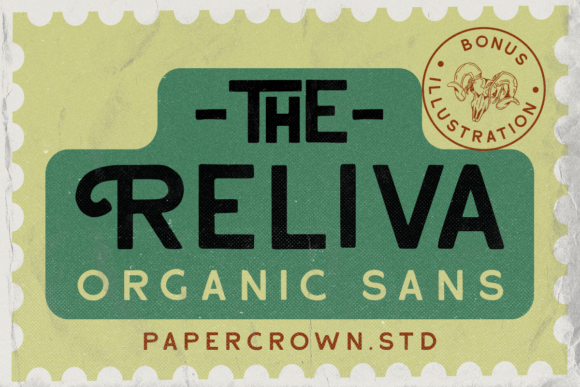
Embark on a typographic journey with Reliva, a remarkable sans serif font family that will transform your designs into captivating masterpieces. Crafted with meticulous attention to detail, Reliva boasts a rich array of alternates and ligatures, granting you unparalleled creative freedom to express your individuality.
Immerse yourself in the boundless possibilities presented by Reliva's extensive character set. Unleash your artistic vision with a myriad of stylistic options at your fingertips, allowing you to sculpt typographic landscapes that resonate with personality and style.
Harness the power of Reliva's organic allure to craft designs that exude a sense of effortless elegance. Whether you're weaving captivating headlines, crafting engaging body text, or designing logos that demand attention, Reliva's versatile nature ensures it complements your every creative endeavor.
Elevate your designs with Reliva's stunning illustrations, meticulously crafted to harmonize seamlessly with the font's aesthetic. Add a touch of whimsy to your projects, captivating your audience with charming visuals that complement your typography perfectly.
Don't settle for ordinary fonts. Embrace the transformative power of Reliva and unlock a world of typographic possibilities. Let your creativity soar as you explore the depths of this remarkable font collection, leaving an indelible mark on the hearts and minds of your audience.